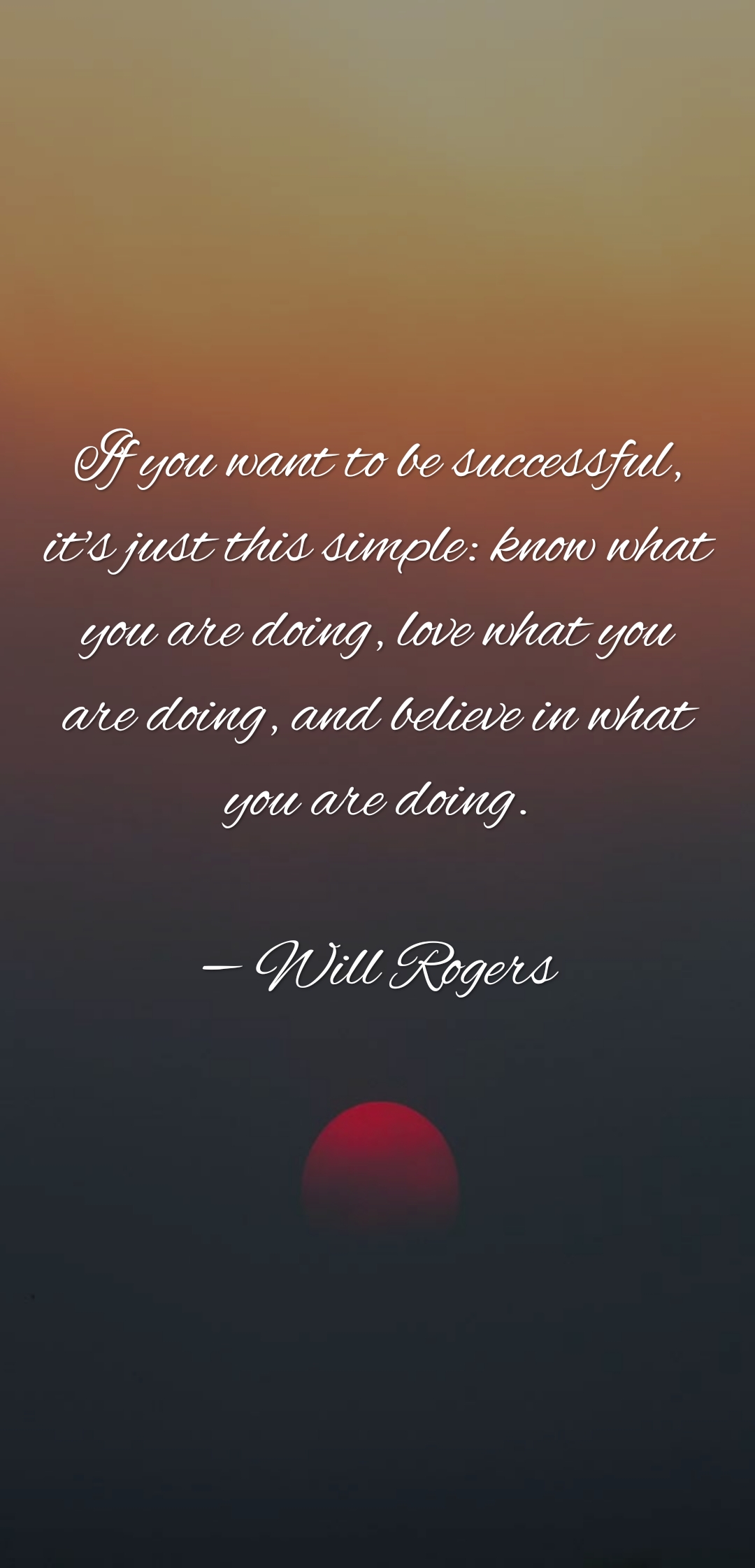
December Pastel is a striking script font. It’s perfect for logos, name tags, advertisements, product packaging, clothing, social media, greeting …
December Pastel Font